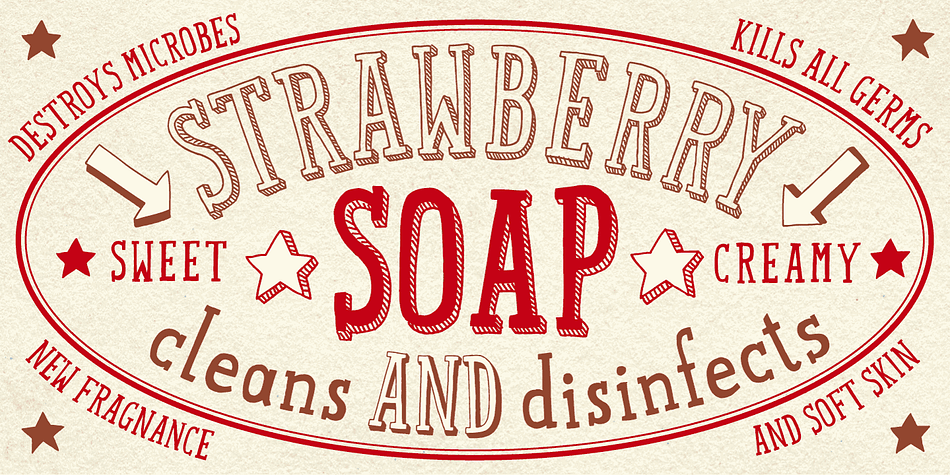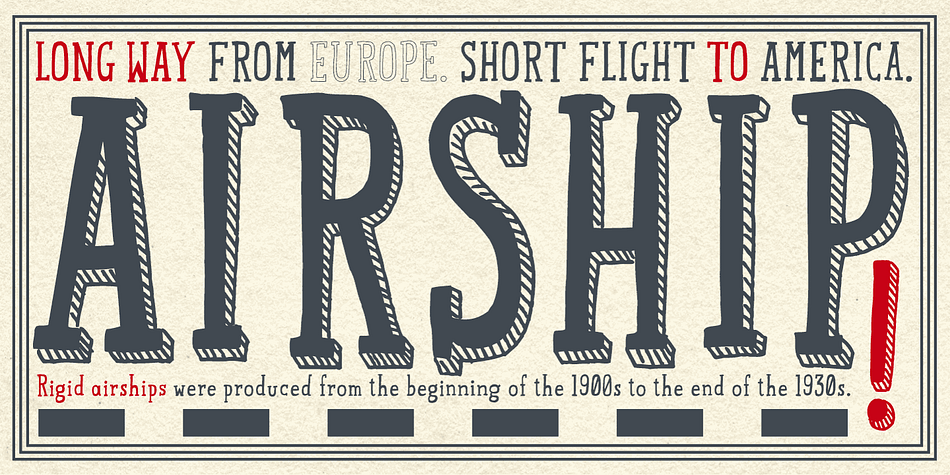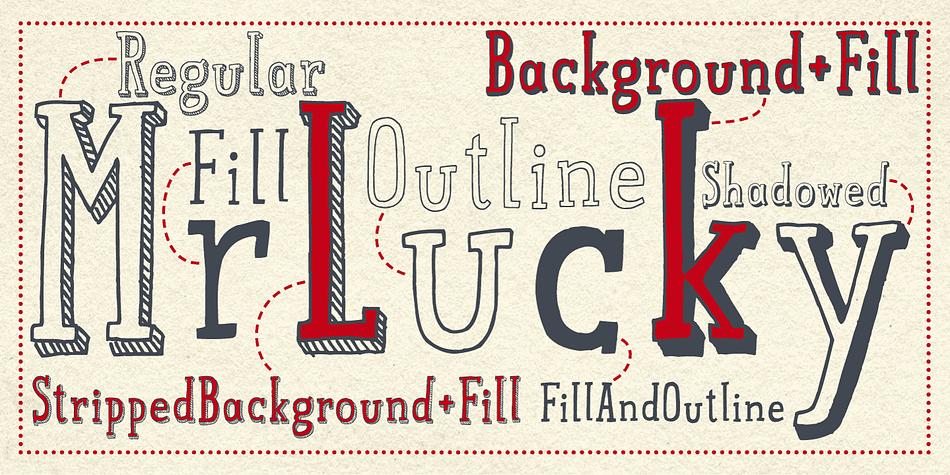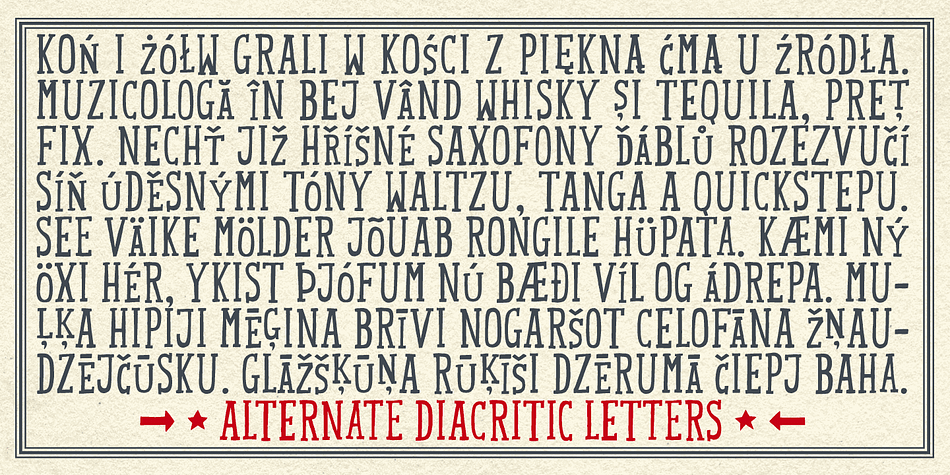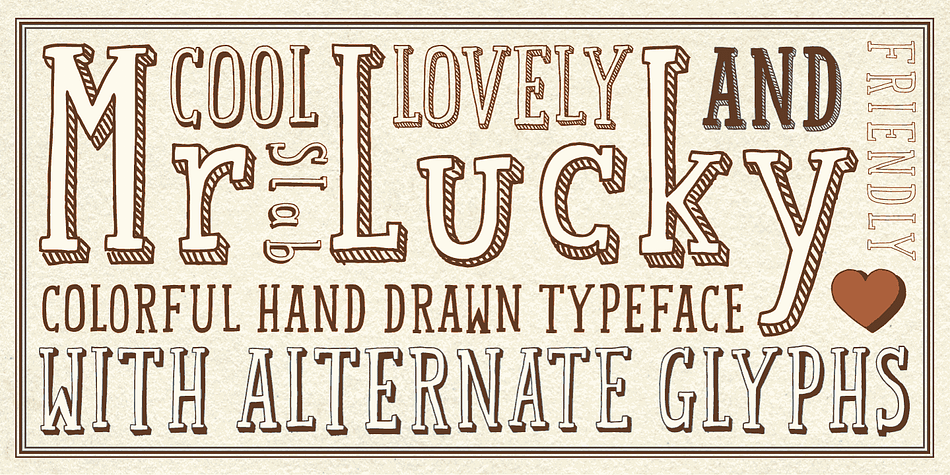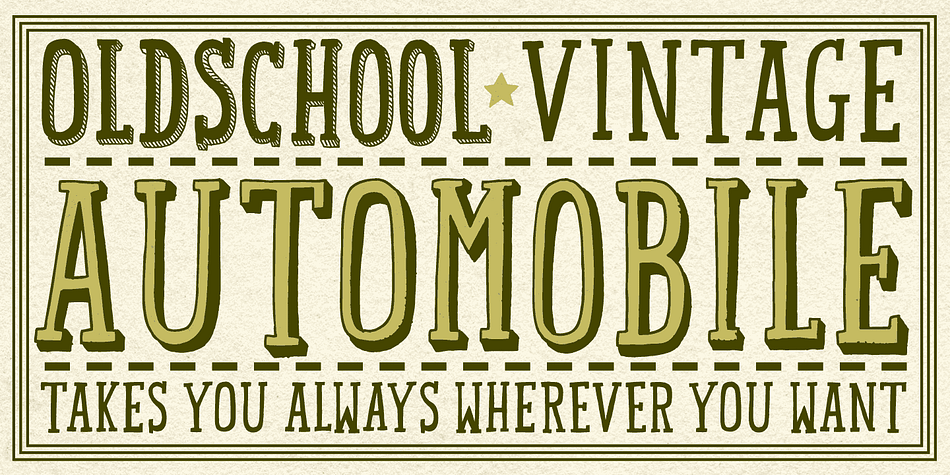
Mr Lucky is a hand drawn and hand display font family. This typeface has seven styles and was published by Hipopotam Studio.
Mr Lucky is Mr Happy’s slab brother and a hand drawn narrow typeface designed for one of our books. You can layer different styles over the background style to achieve lots of colorful effects. Use just one style to get a single color letter or set Fill over Background or Stripped Background to get a two color mode. Mr Lucky has upper and lowercase characters with up to three alternate glyphs. Build in OpenType Contextual Alternates feature will automatically set alternate glyphs depending on frequency of appearance of the same character (even in web font but only in HTML5 browsers). The script doesn’t throw random glyphs. For example in the word “HIPPOPOTAMUS” you will automatically get three different “P” glyphs and two “O” glyphs. It really works great but of course you can always fine tune it by hand.